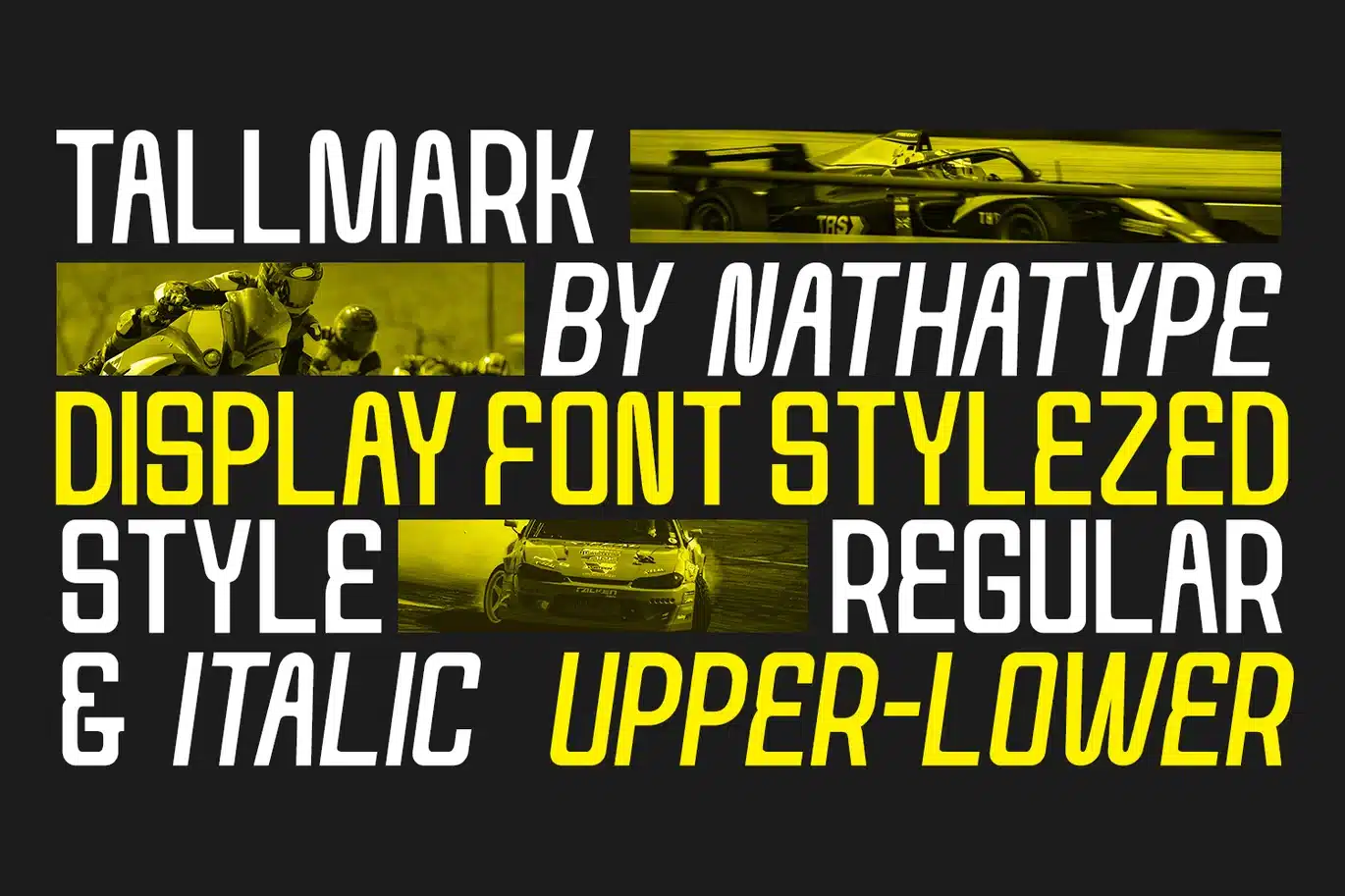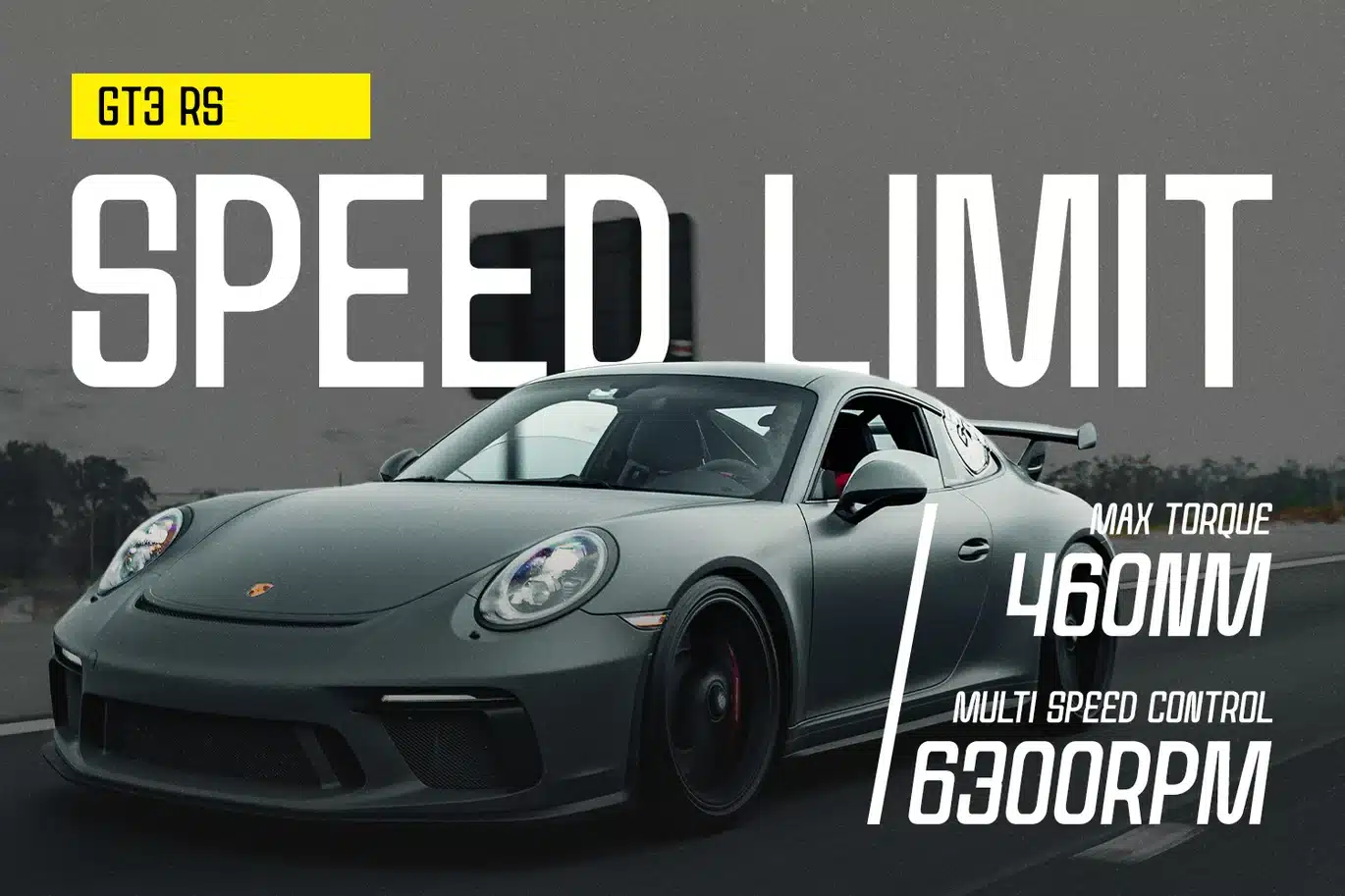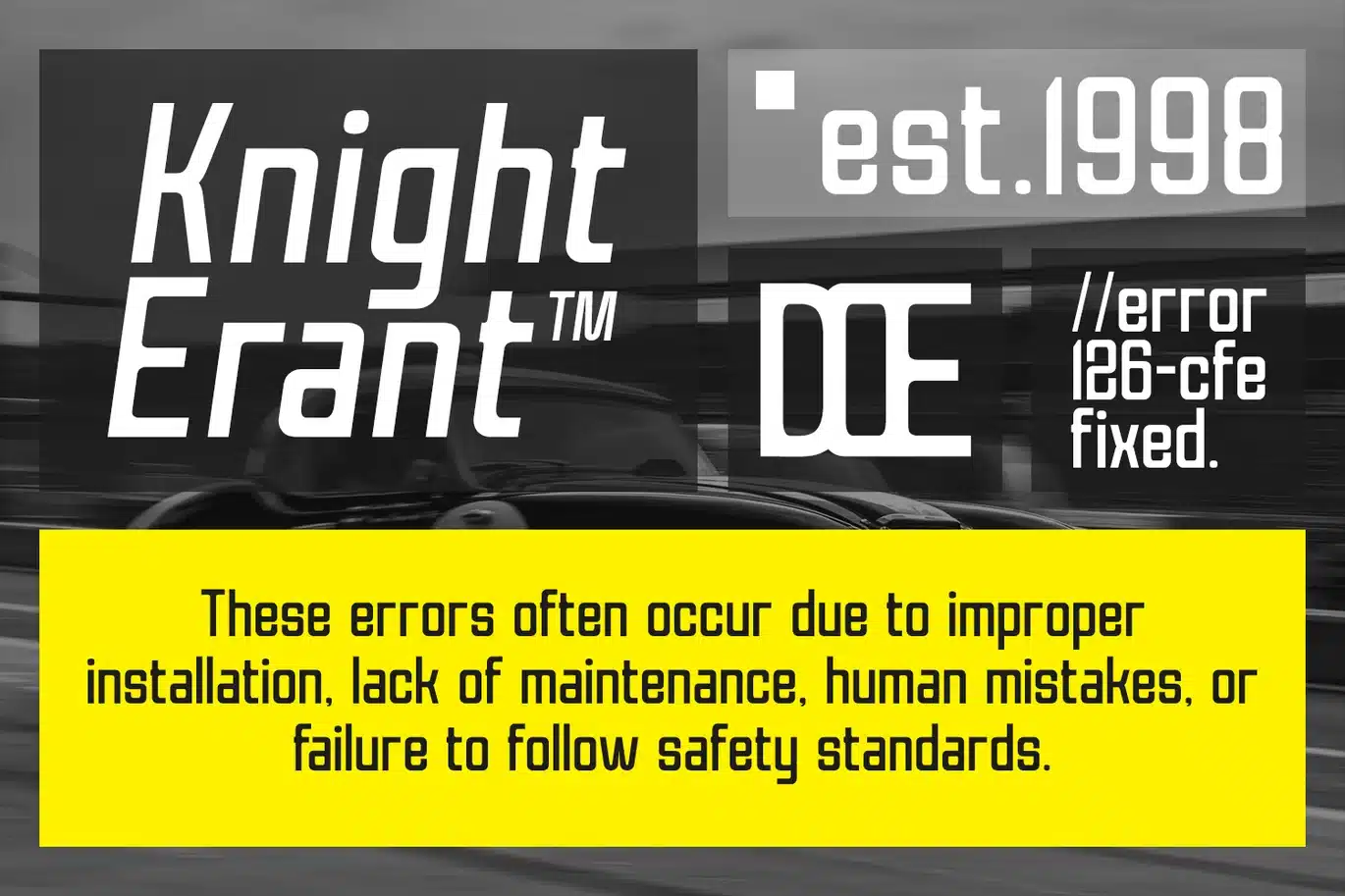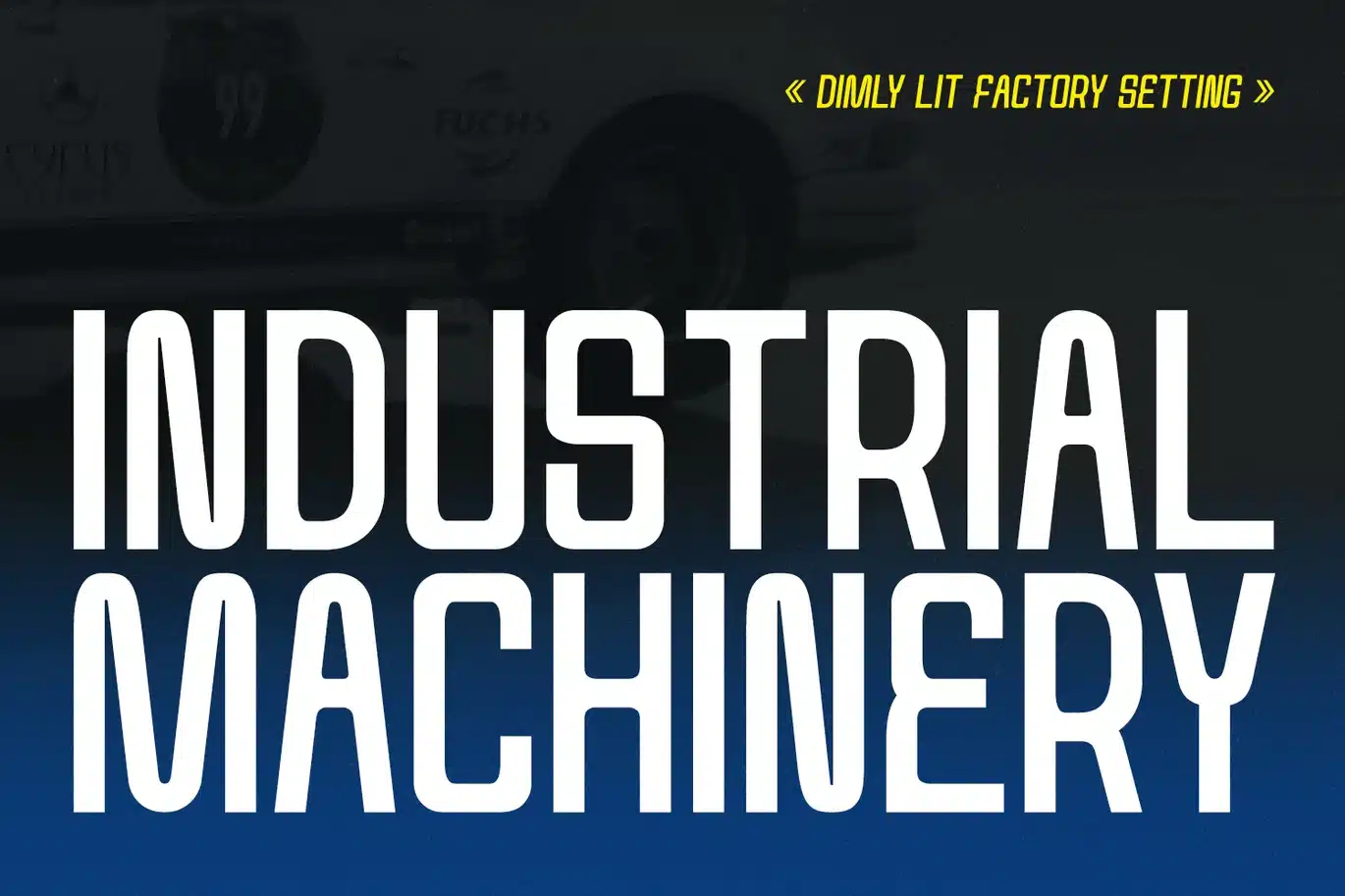
Tallmark – Condensed Racing Font
Tallmark is a high-impact condensed sans serif font inspired by the speed, precision, and adrenaline of the racing world. Designed with a narrow structure and dynamic proportions, this typeface captures the essence of motion and performance, making it the perfect choice for projects that demand energy and bold visual presence. Its streamlined letterforms and compact width allow for maximum efficiency in tight spaces while maintaining a strong, commanding look. In addition, enjoy the features here.
Tallmark fits in logos, quotes, branding, posters, and many more designs. Find out more ways to use this font by taking a look at the font preview.